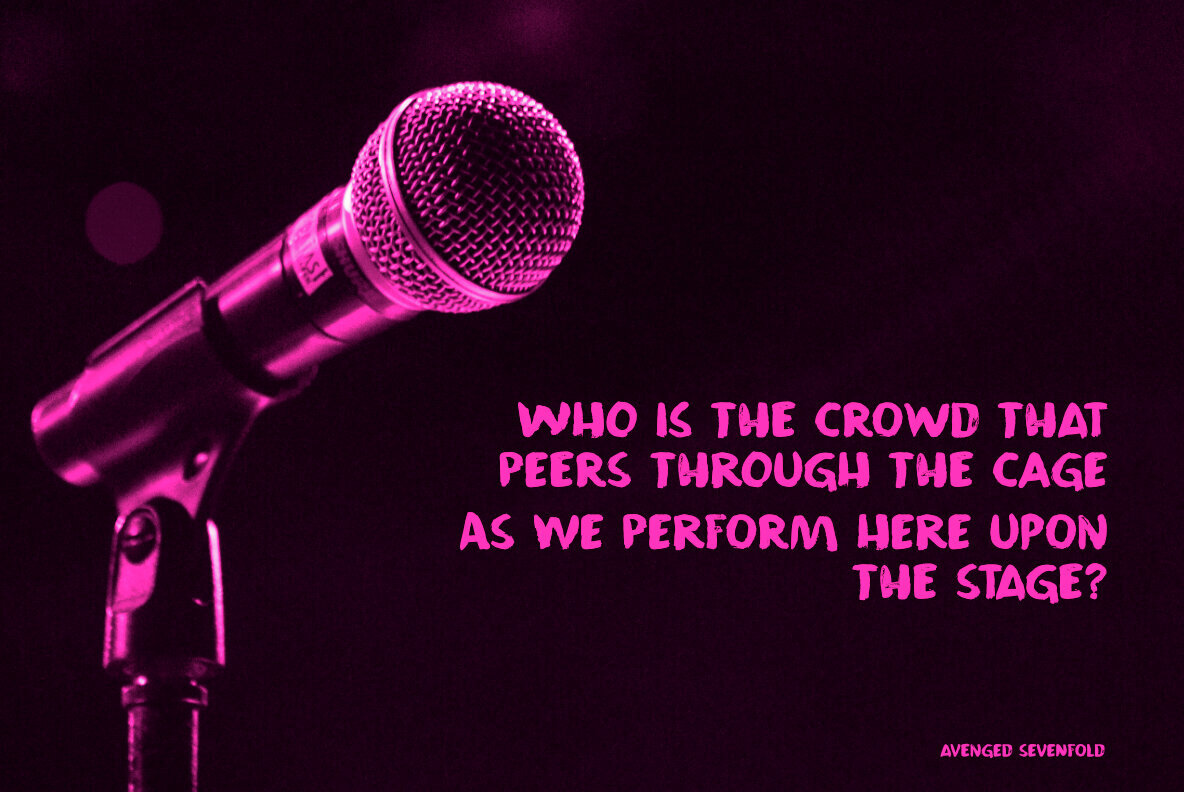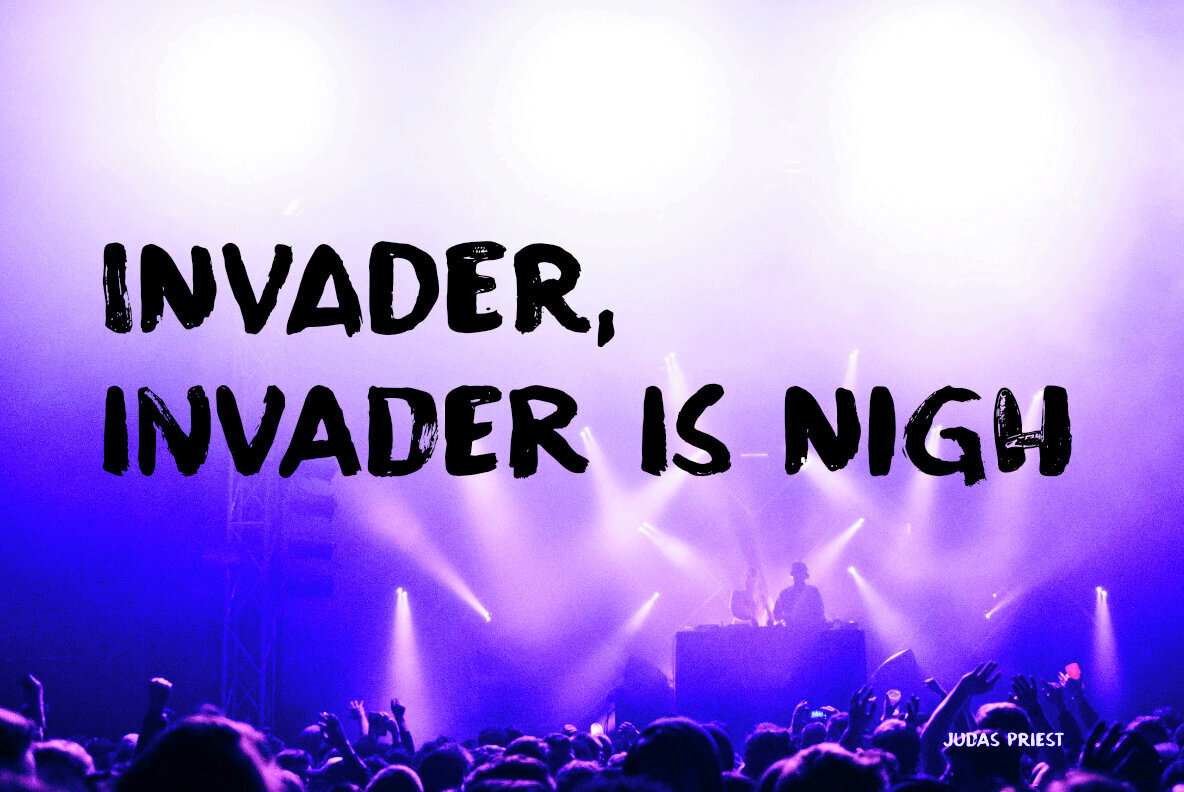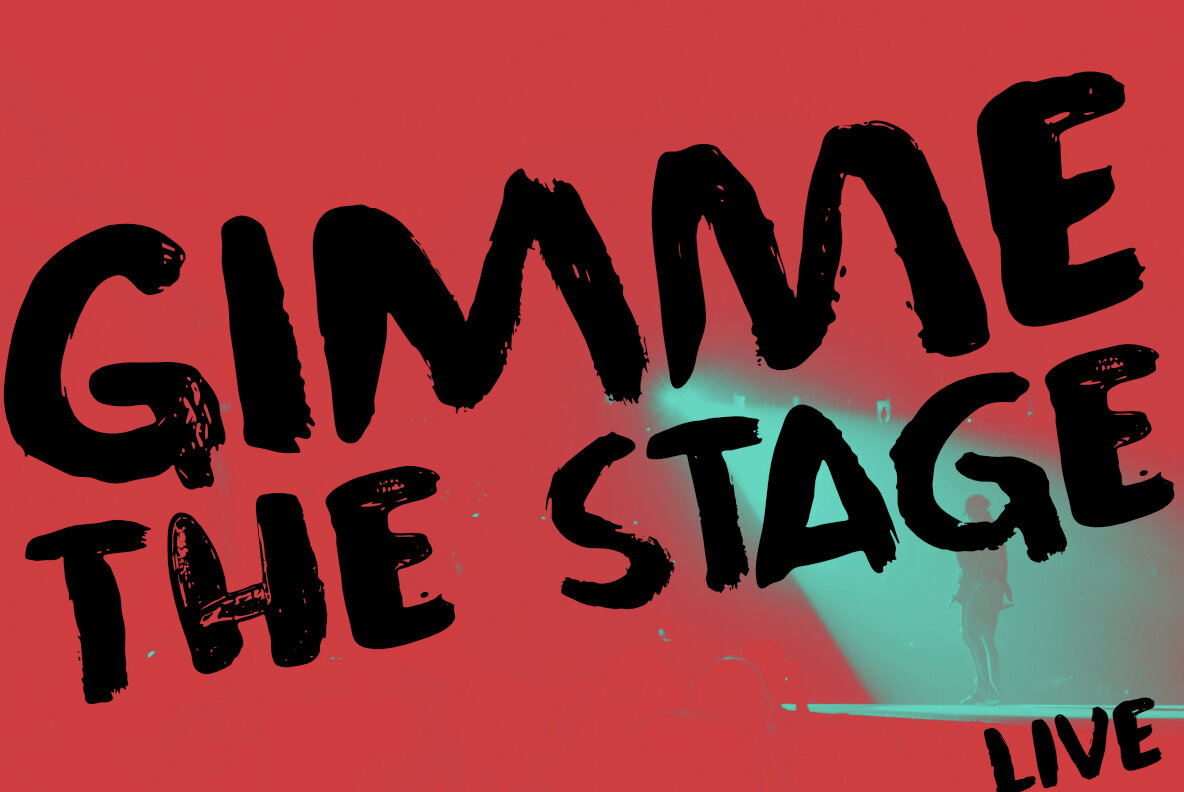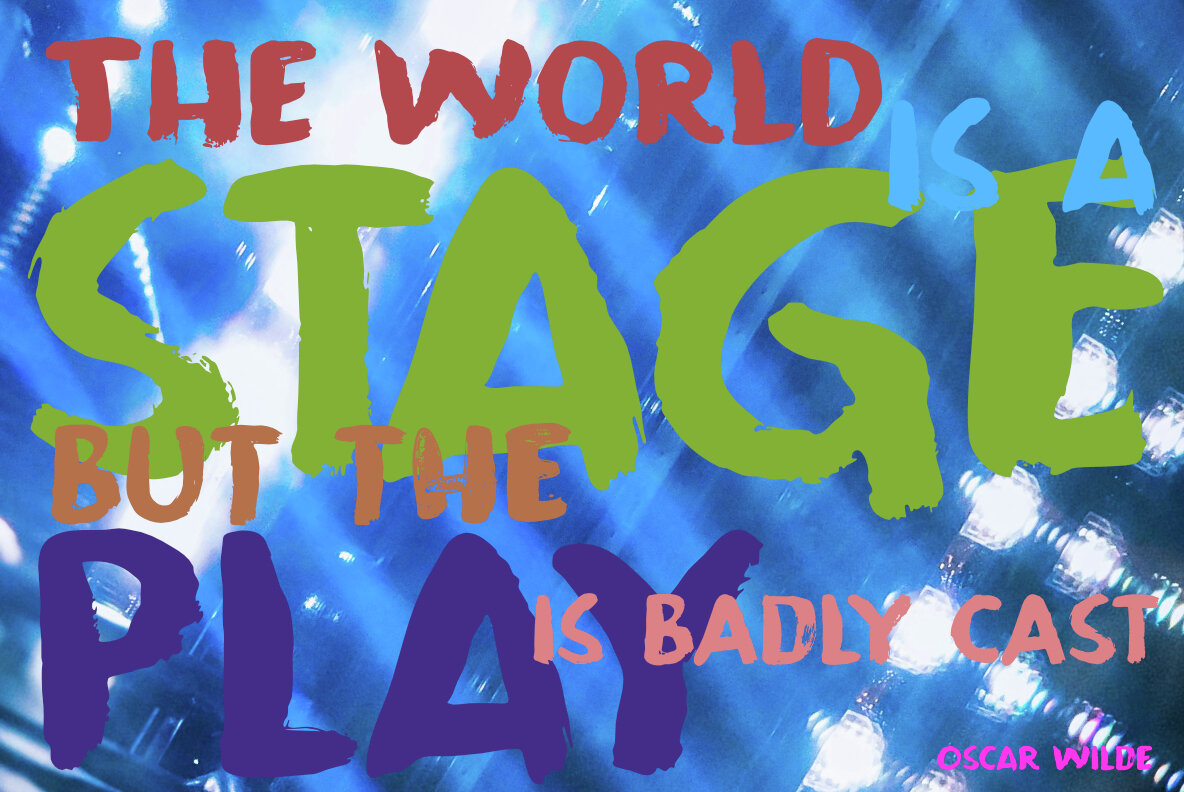
Stage Invader Font
Inspired by a memorable incident during a climate protest in Amsterdam, the Stage Invader font captures the essence of bold self-expression. This typeface originated from an impromptu combination of finger paint and a child's brush, resulting in distinctive, handmade letterforms.Stage Invader: A Handcrafted Typeface with a Bold Protest Spirit
Unique Features